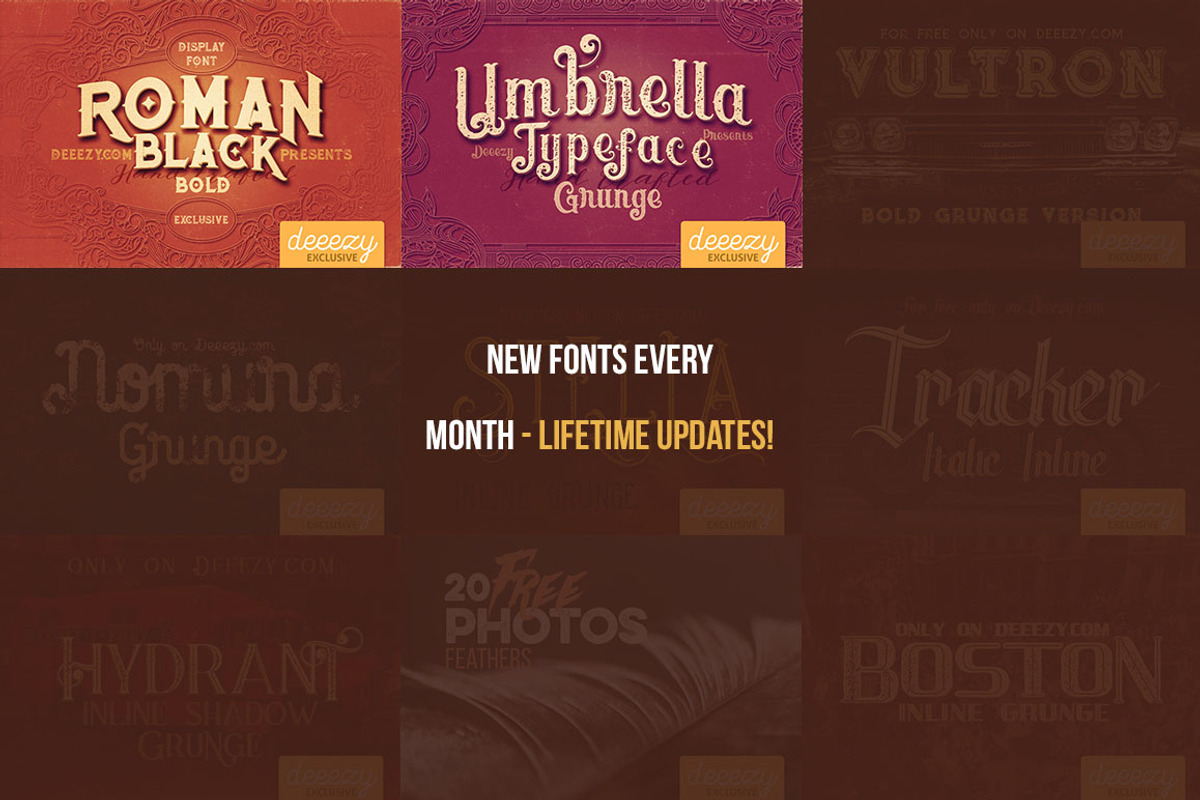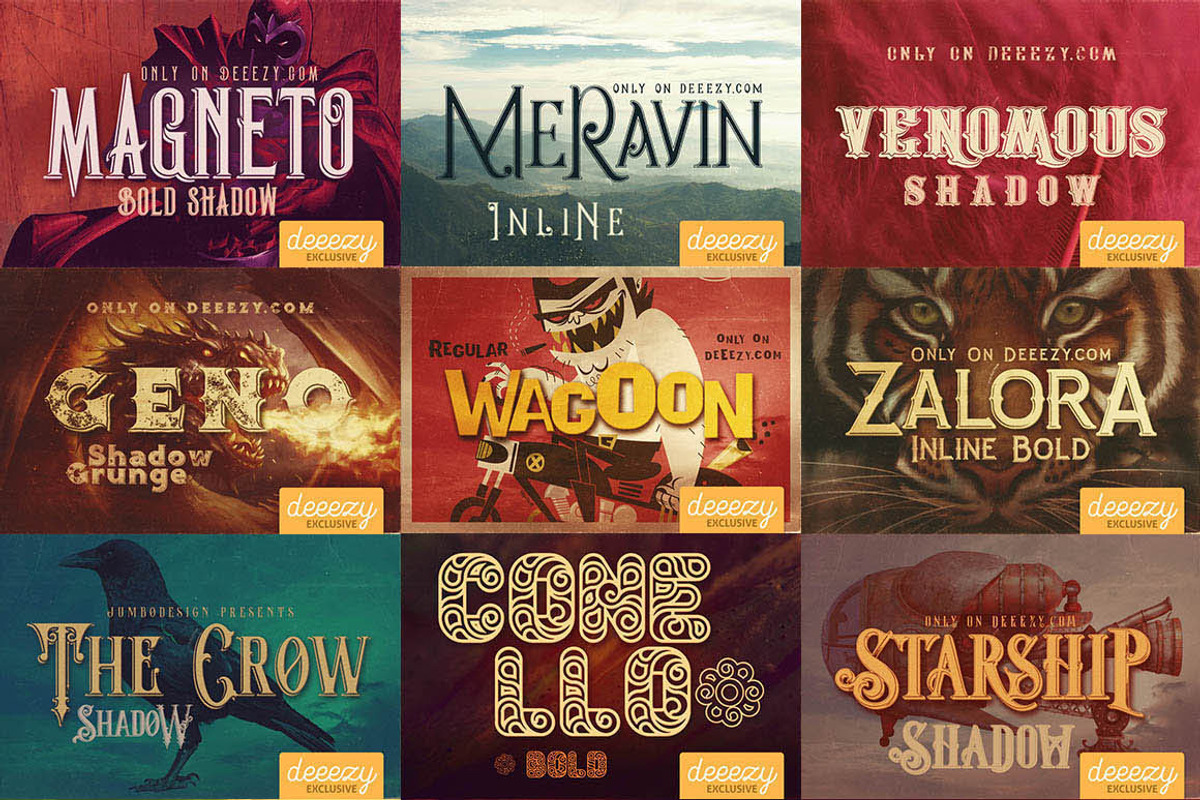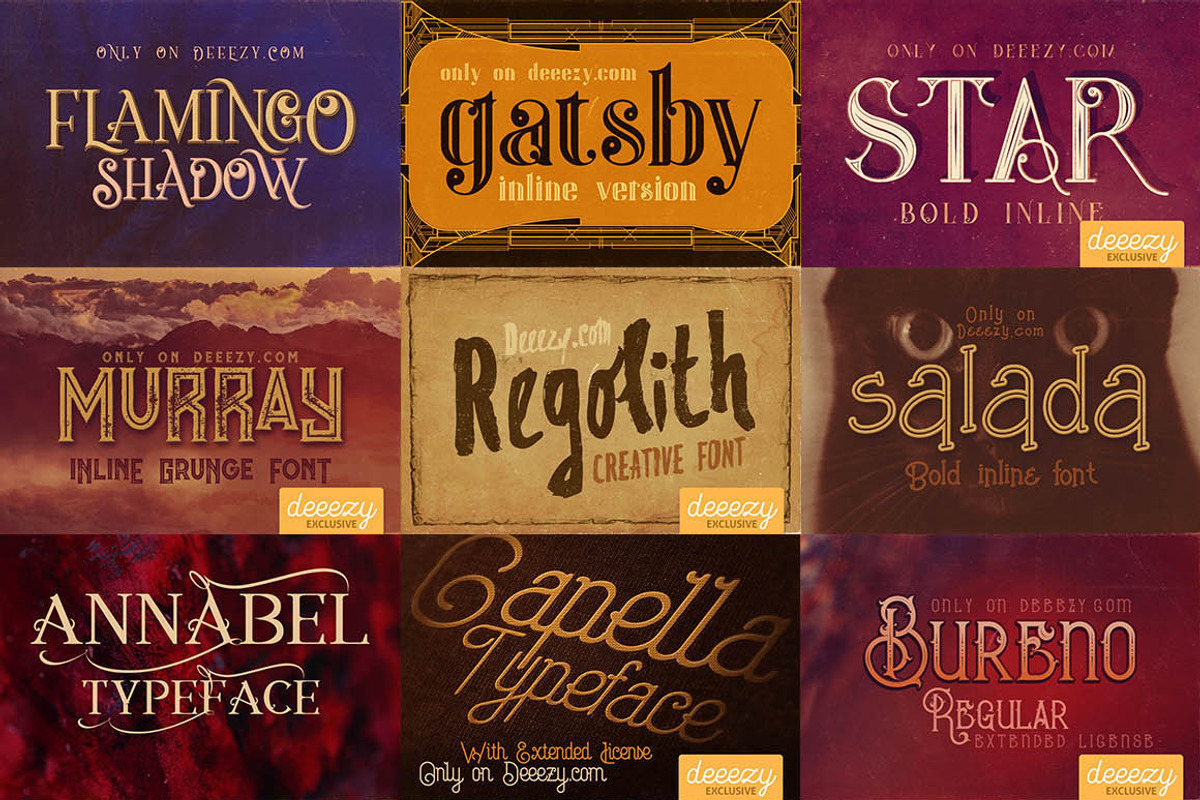
Deeezy ALL Fonts in ONE pack
Deeezy ALL Fonts in ONE pack by Deeezy is a font selected for branding, posters, packaging, typography.
Why Deeezy ALL Fonts in ONE pack is worth a look
Deeezy ALL Fonts in ONE pack by Deeezy fits naturally into Branding, posters, packaging, typography.